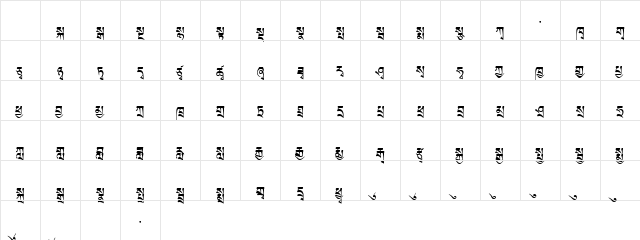
Complete TibetanMachineWeb1 Regular glyph index. Displaying only characters natively supported by TibetanMachineWeb1 Regular font.
TibetanMachineWeb1 is a composed and adaptable typeface that performs quietly and consistently across a wide range of design contexts.